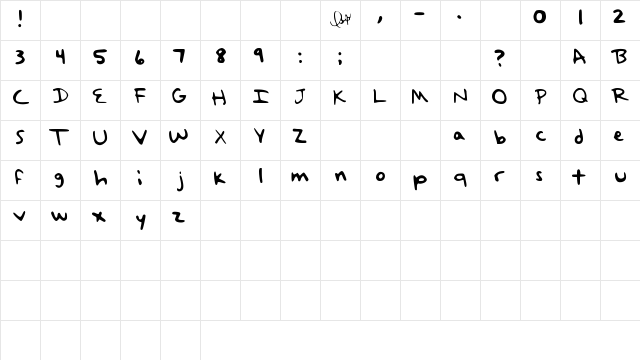
TaylorSwiftHandwriting Medium Font Preview
TaylorSwiftHandwriting Medium
TaylorSwiftHandwriting Medium Font Details
Design Context for TaylorSwiftHandwriting Typeface
TaylorSwiftHandwriting flows with the natural rhythm of handwritten lettering, making it ideal for designs that call for warmth and personal expression.